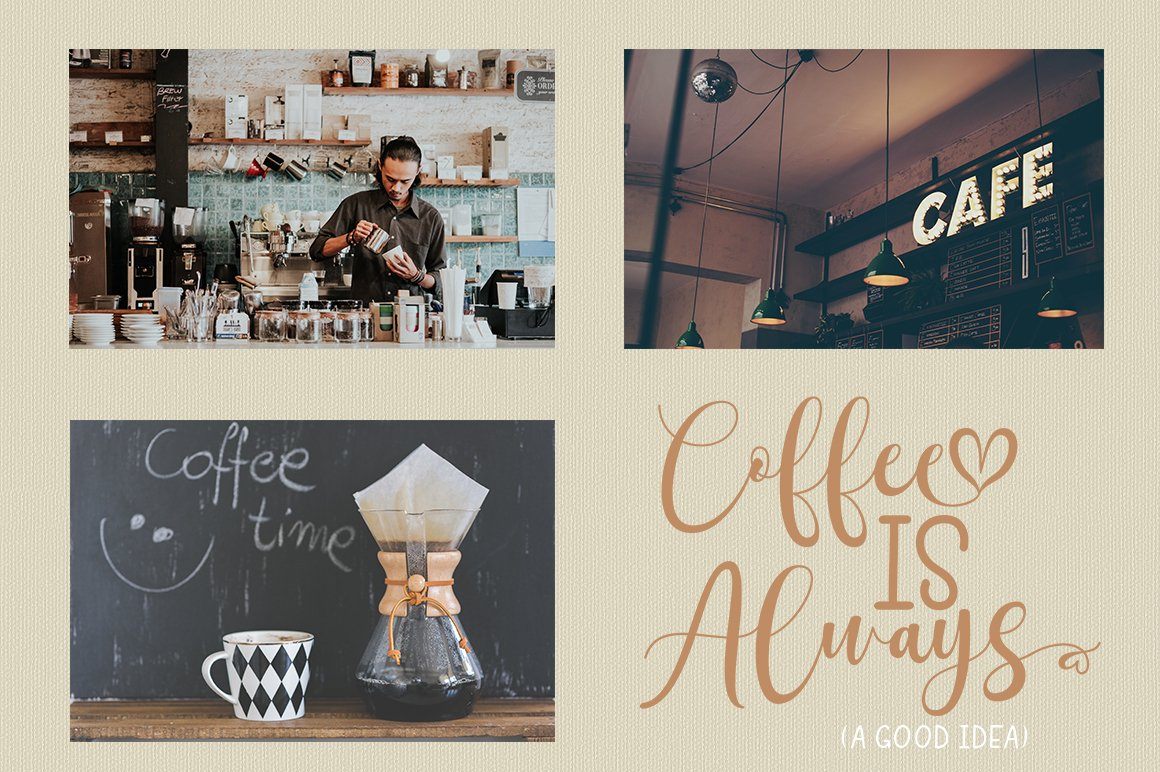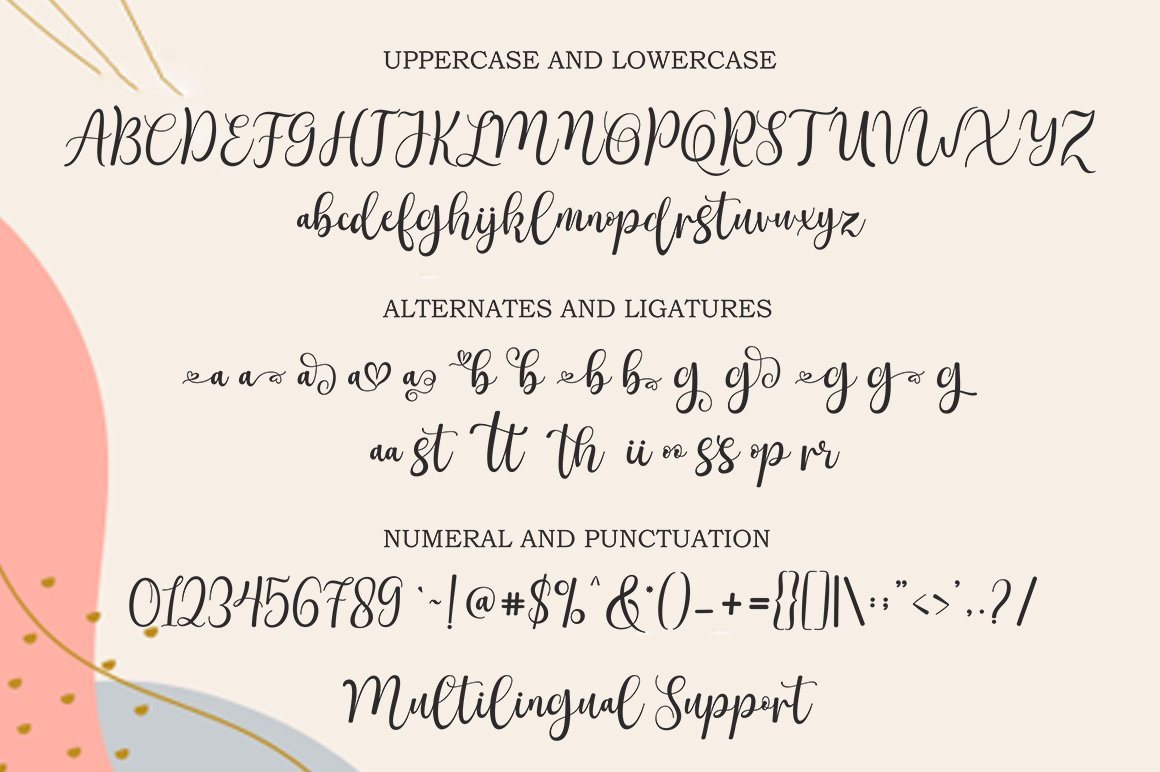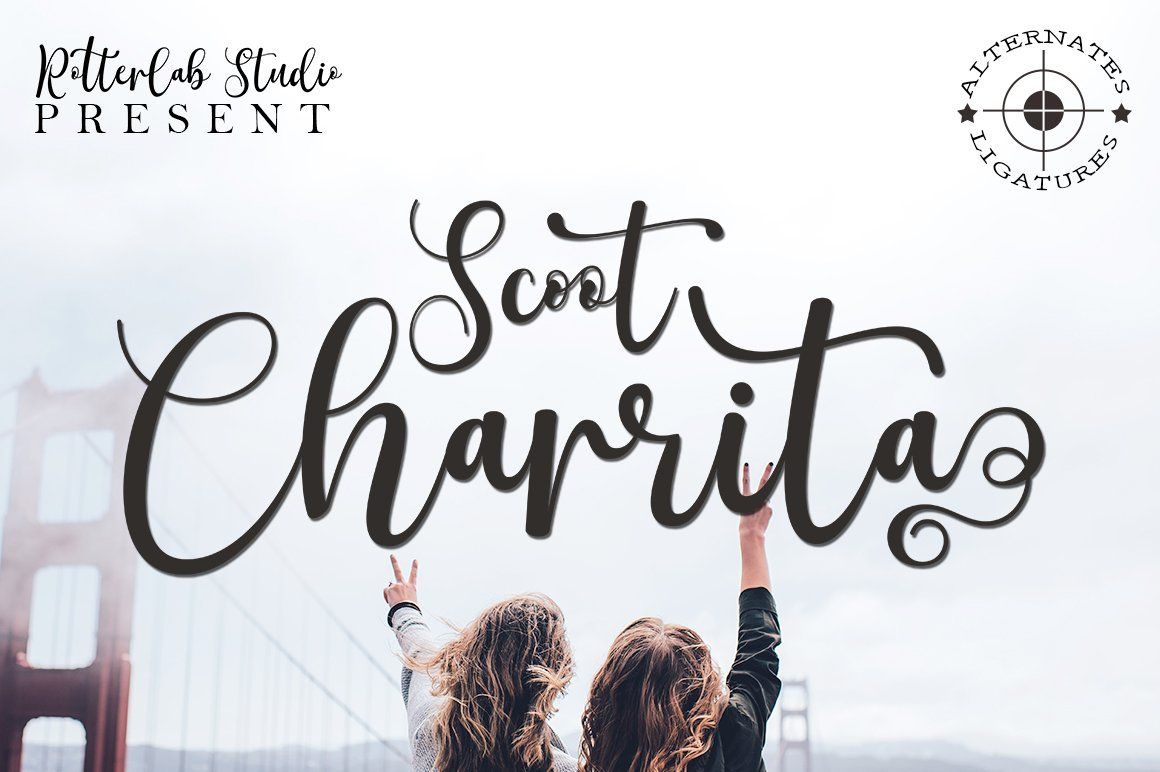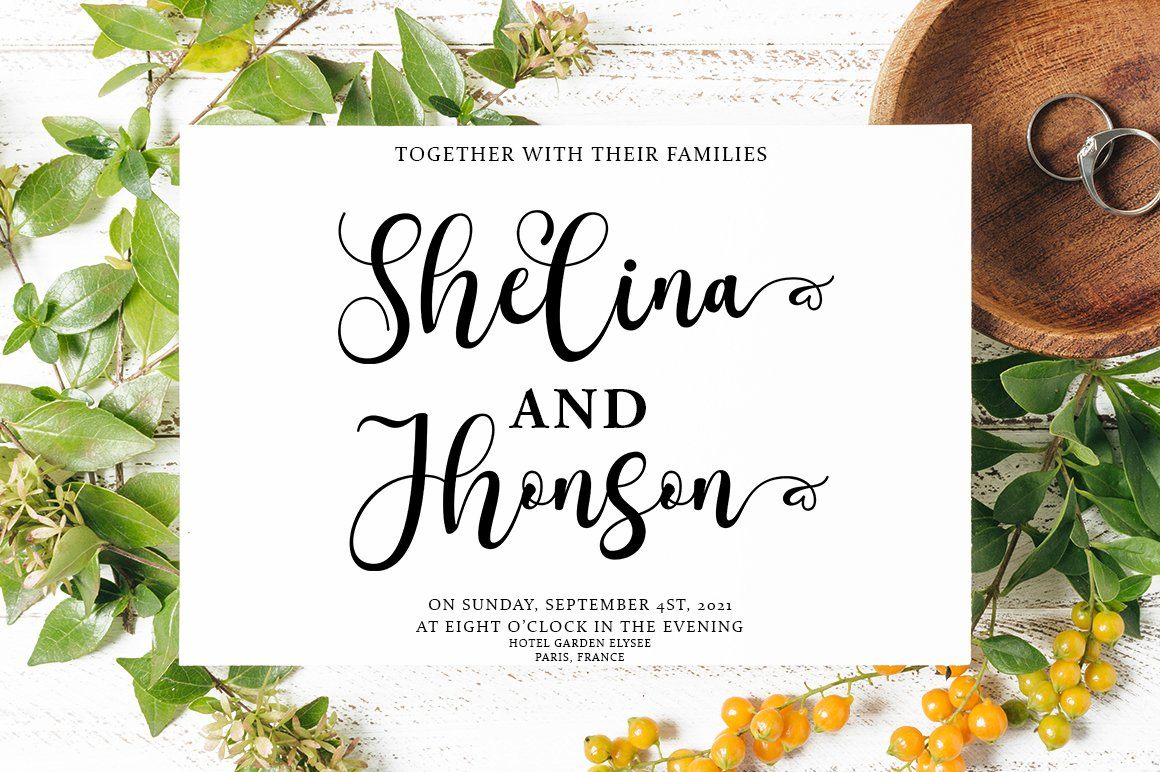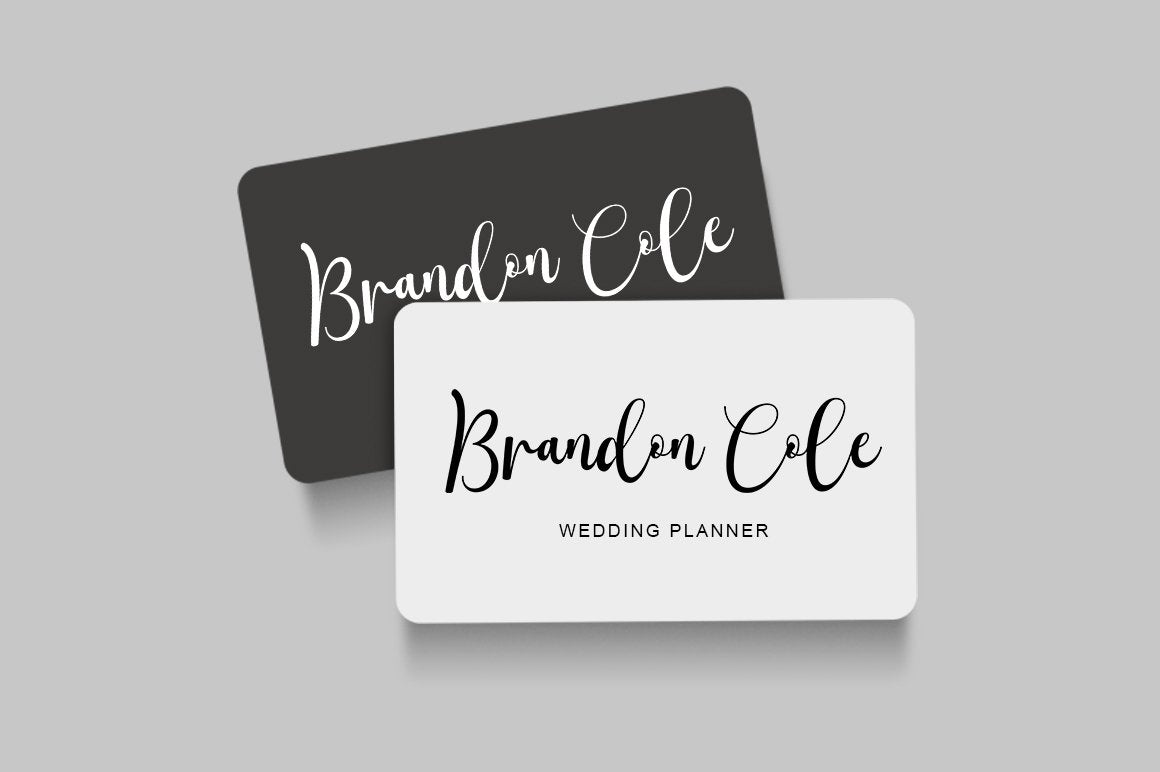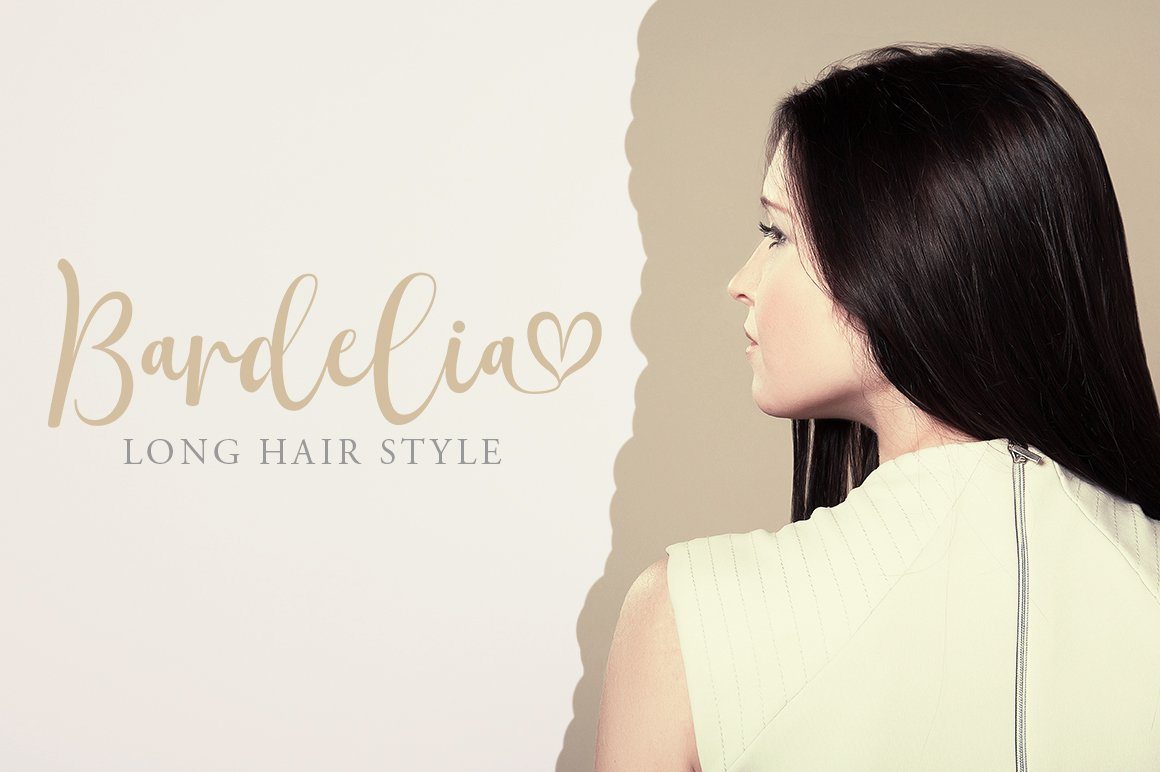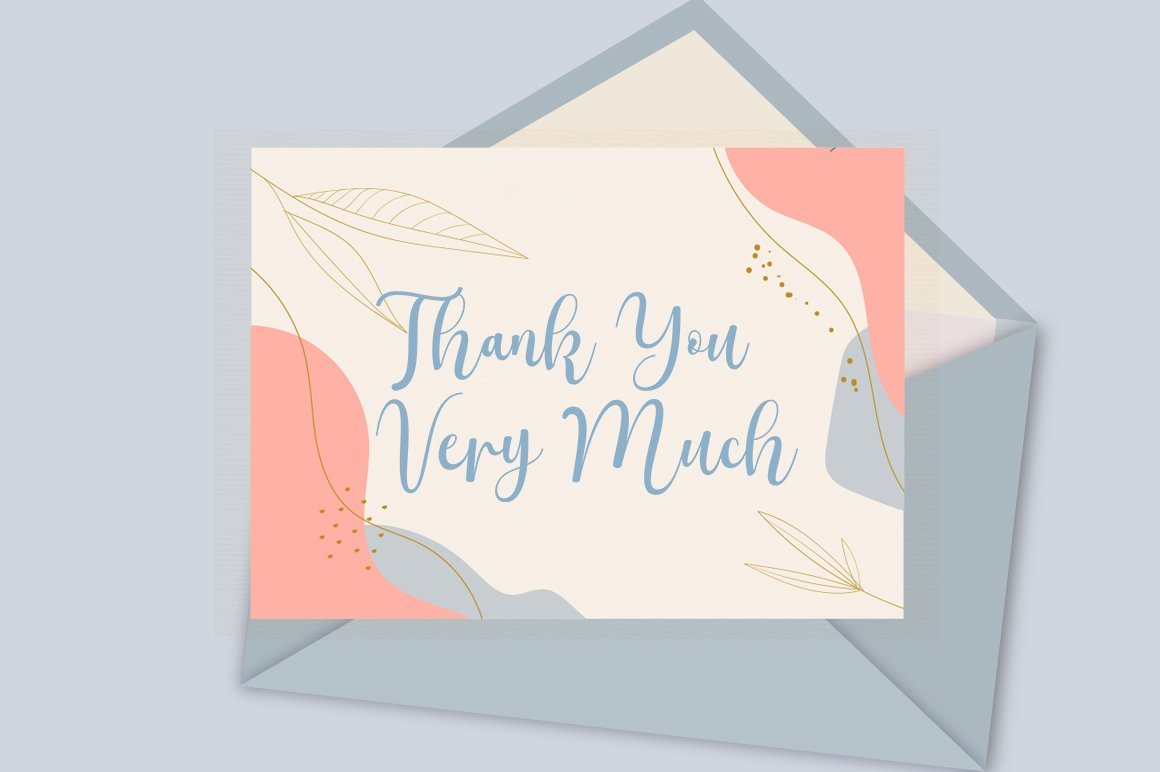
Scoot Charrita
About Scoot Charrita
Scoot Charrita script Fresh & modern new Scoot Charrita script with handcrafted calligraphy style, decorative characters and dancing baseline! Very pretty on invitations such as greeting cards, branding materials, business cards, quotes, posters and more!! Scoot Charrita Script comes with 353+ glyphs. Alternate characters are divided into several Open Type features such as Swash, Stylistic Sets, Stylistic Alternates, Contextual Alternates. The Open Type feature can be accessed using Open Type savvy programs such as Adobe Illustrator, Adobe InDesign, Adobe Photoshop version of Corel Draw X, and Microsoft Word. And this Font has provided PUA unicode (custom coded font). so that all alternative characters can be easily accessed in full by a craftsman or designer.